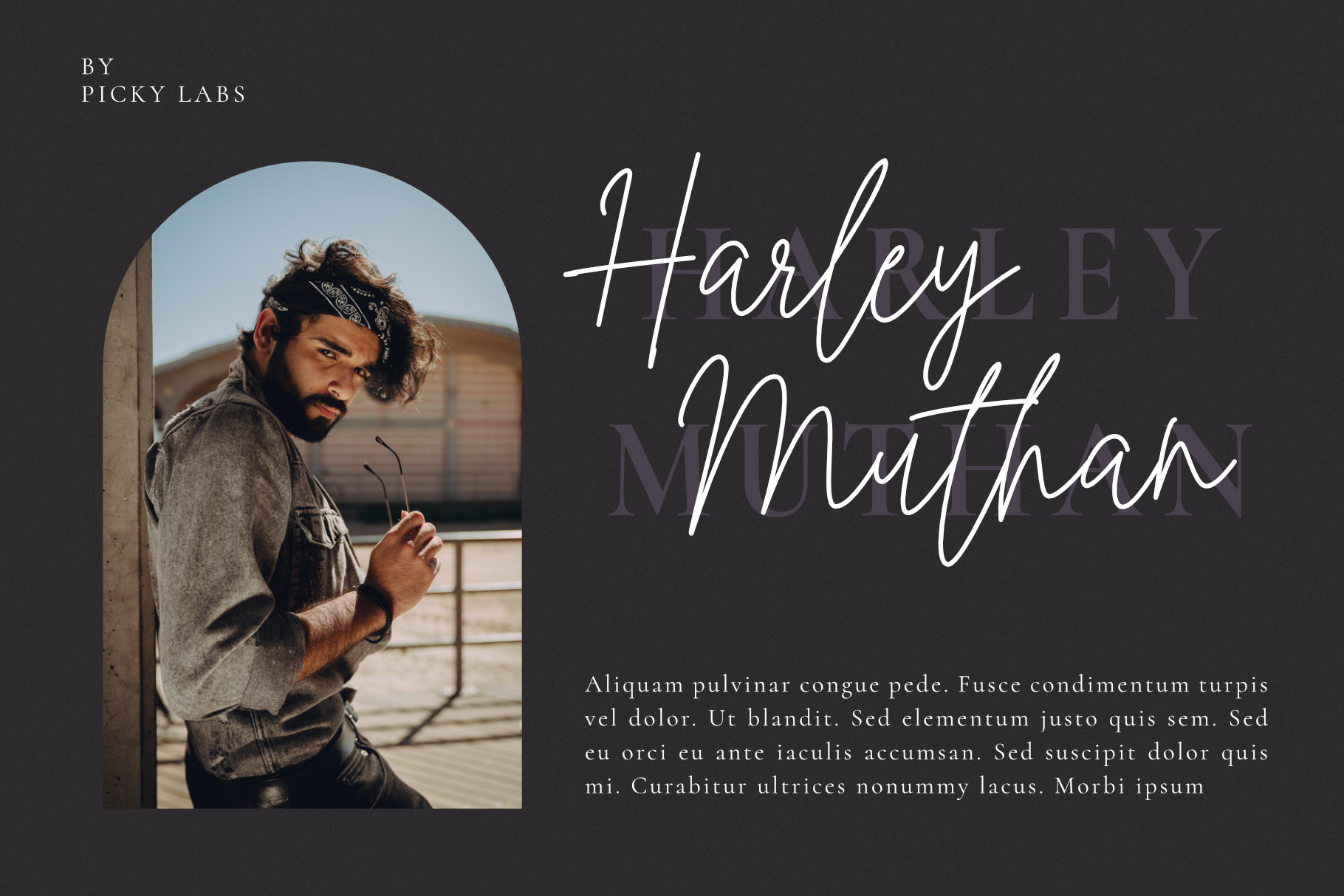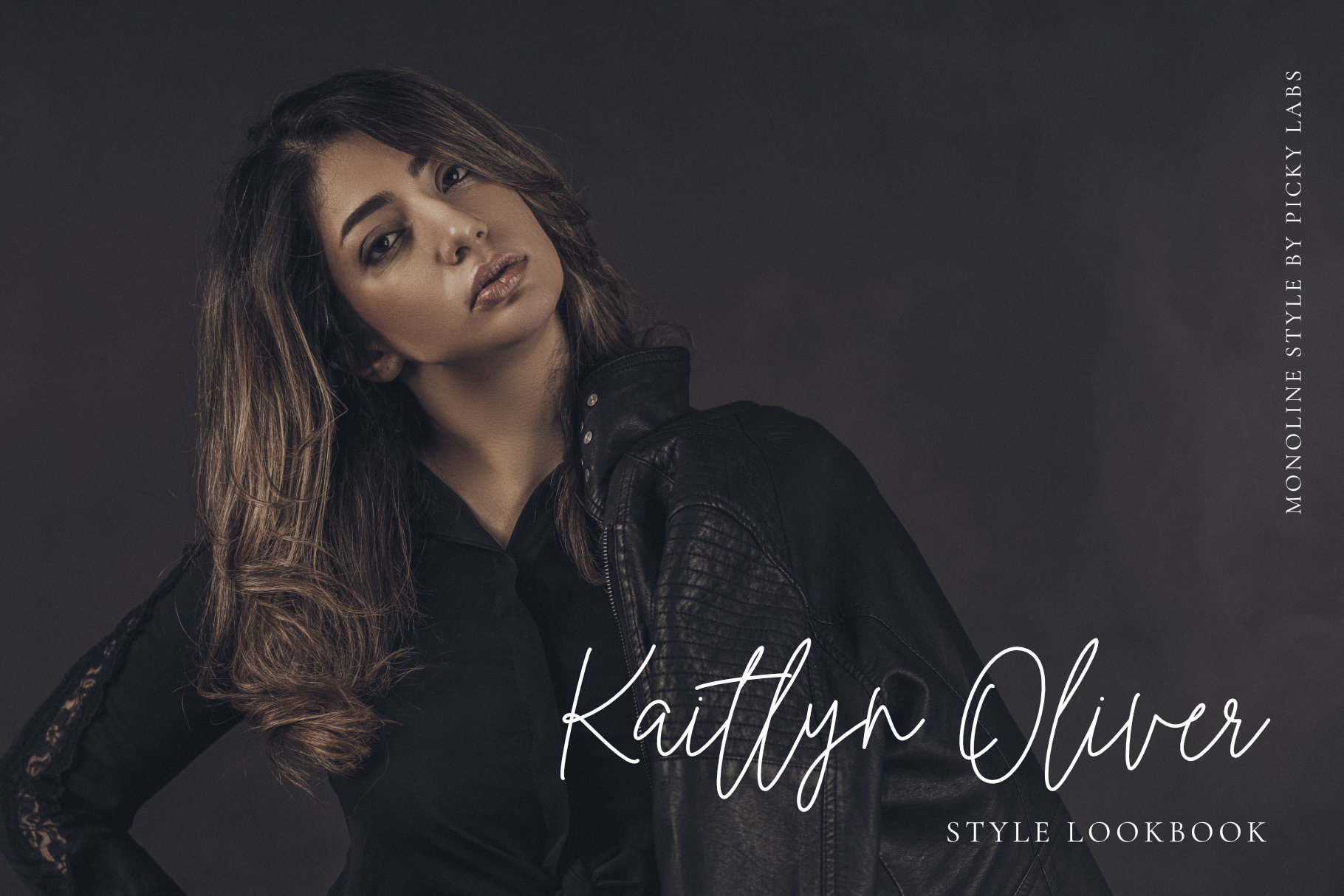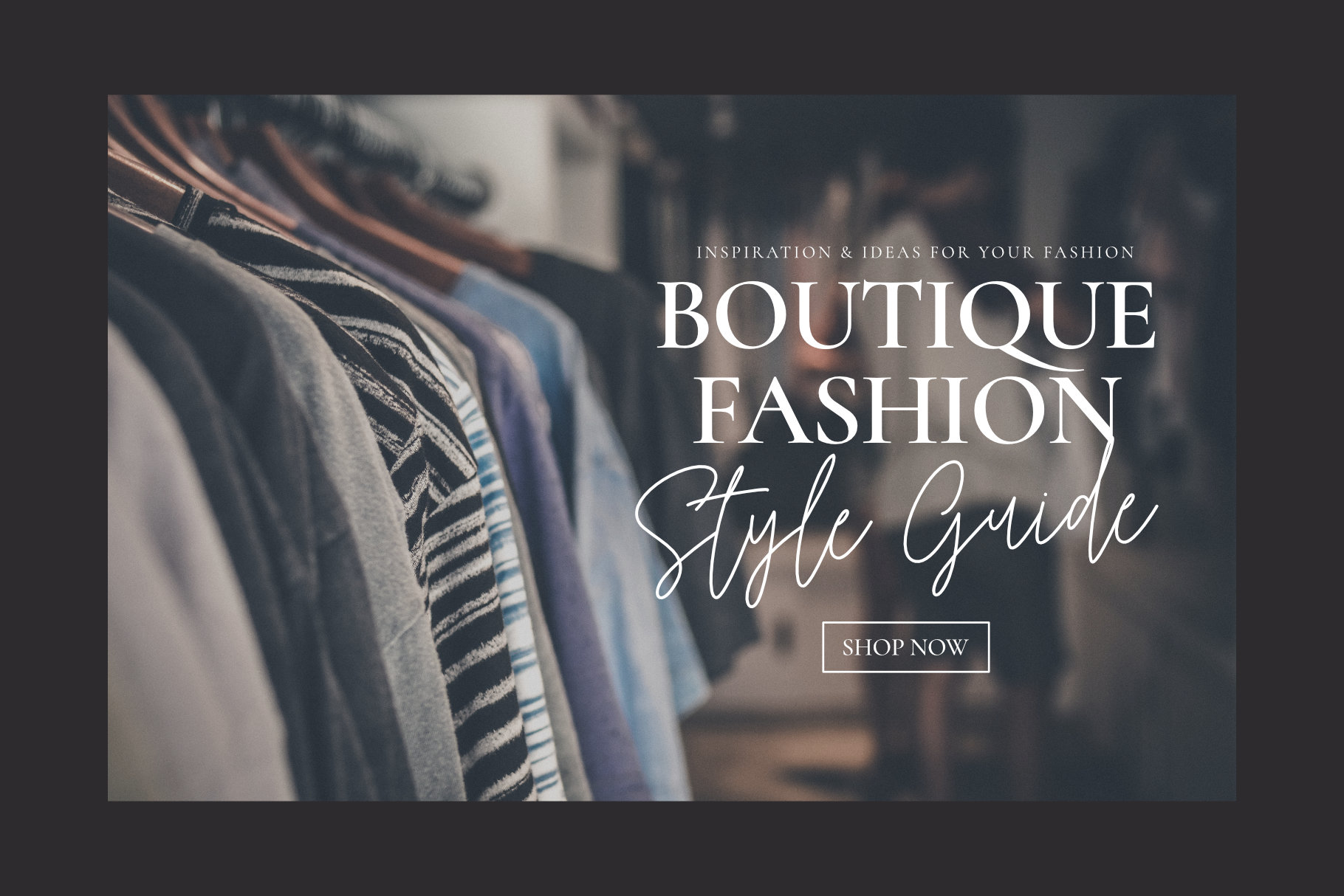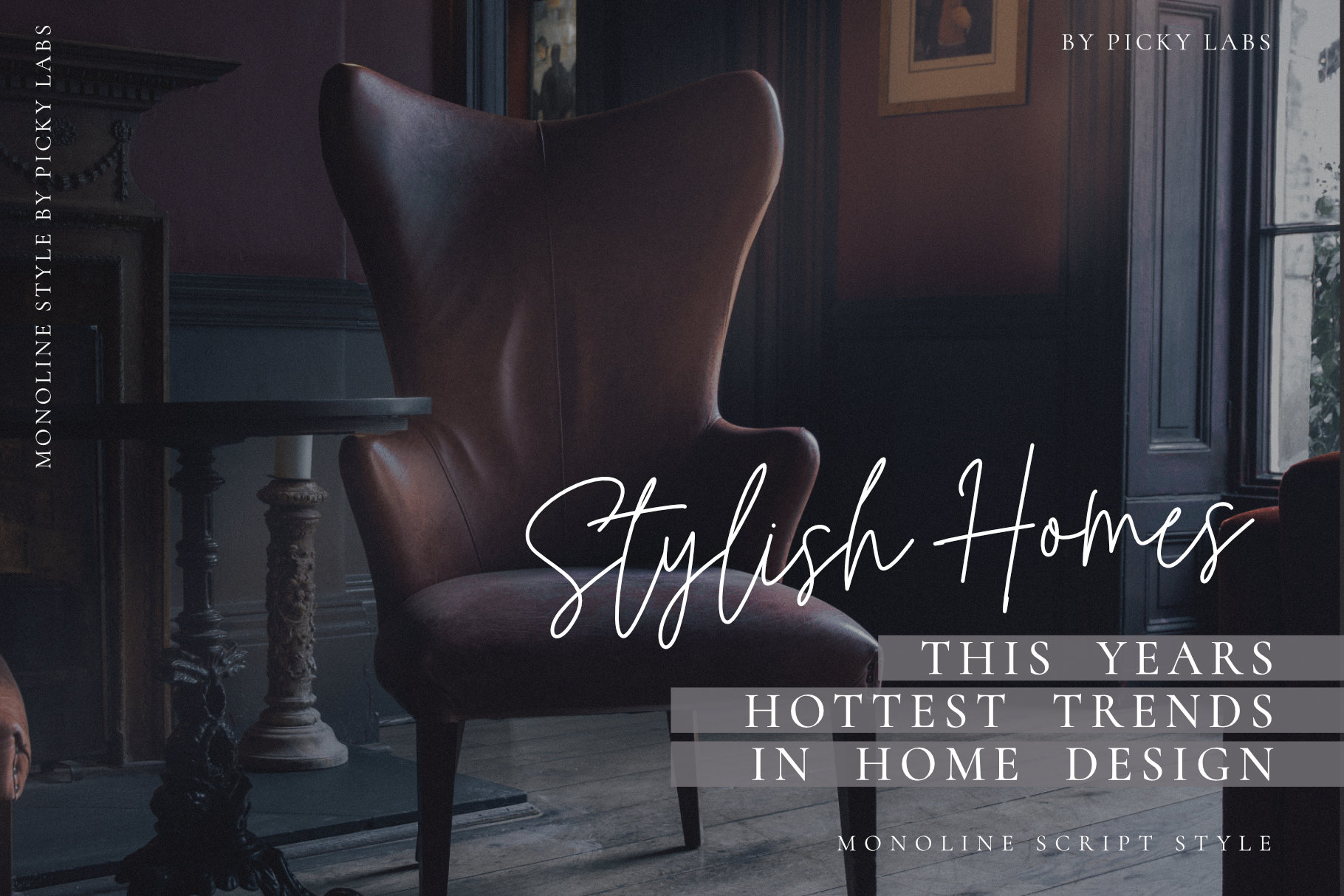
Indiana Signature Font
Indiana Signature Script Font
This is a simple and easy-to-read font, with an elegant touch and monoline script that you can use to perfect your design.
Indiana Signature font is a great choice for branding, wedding designs, social media posts, advertisements, product designs, logos, movies, and many other design projects.